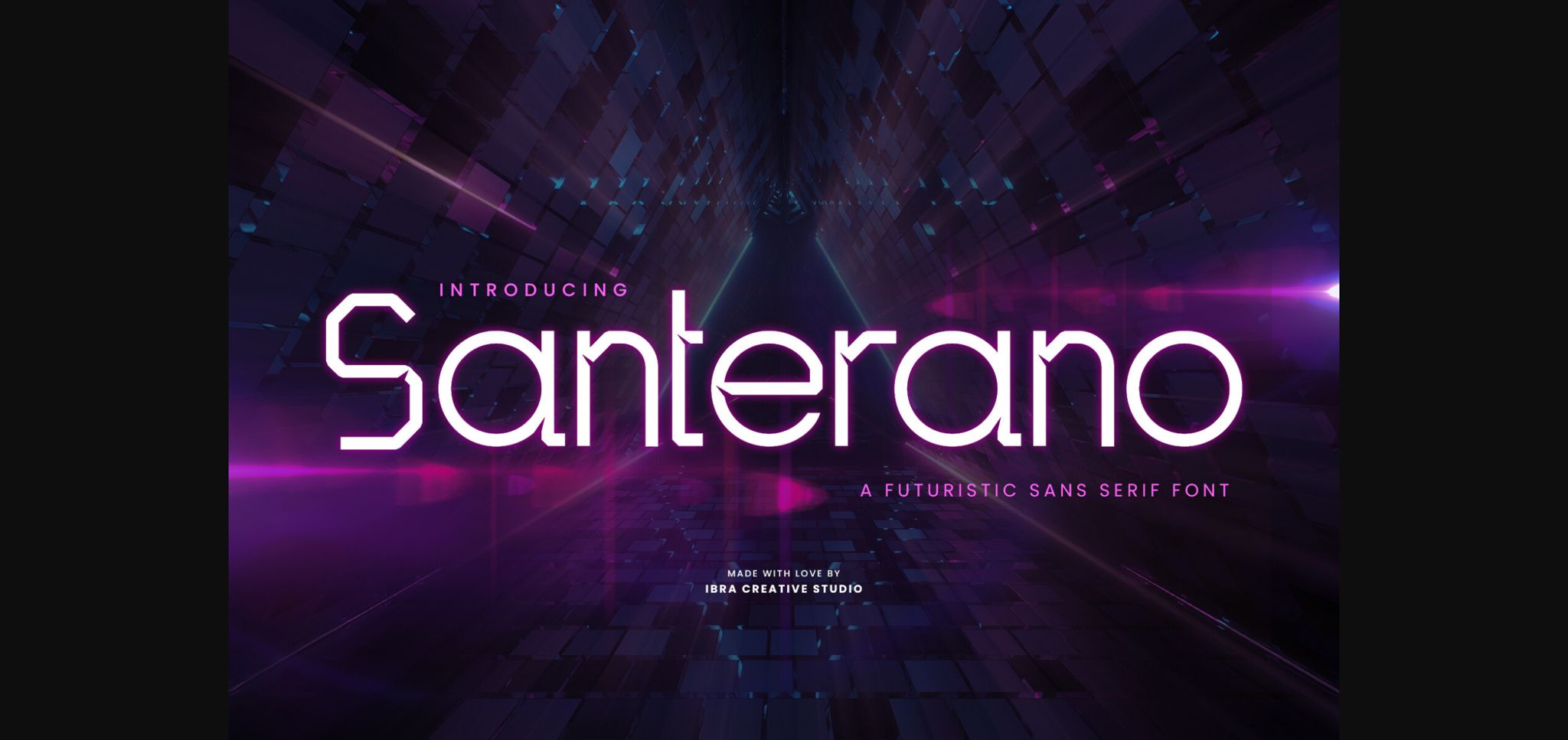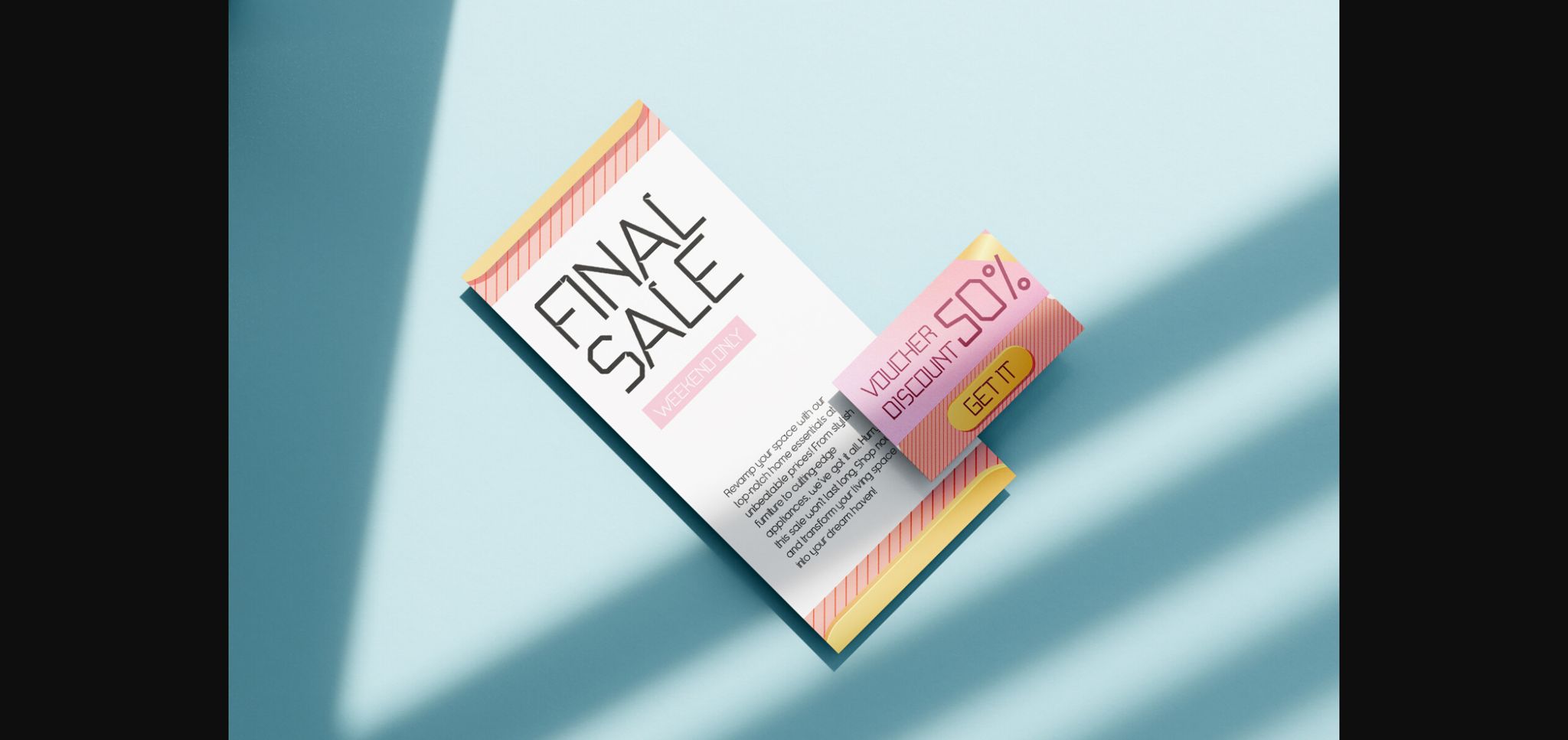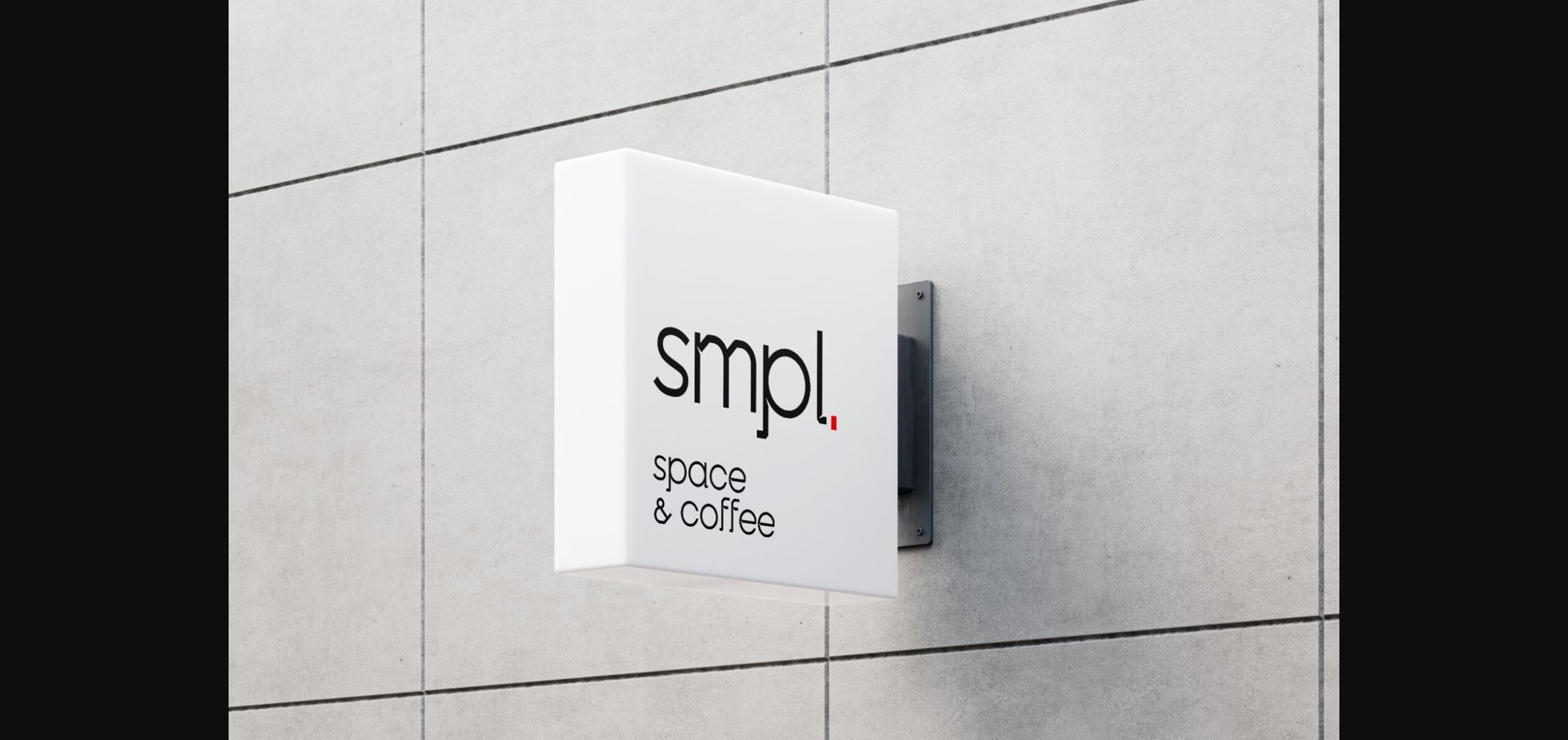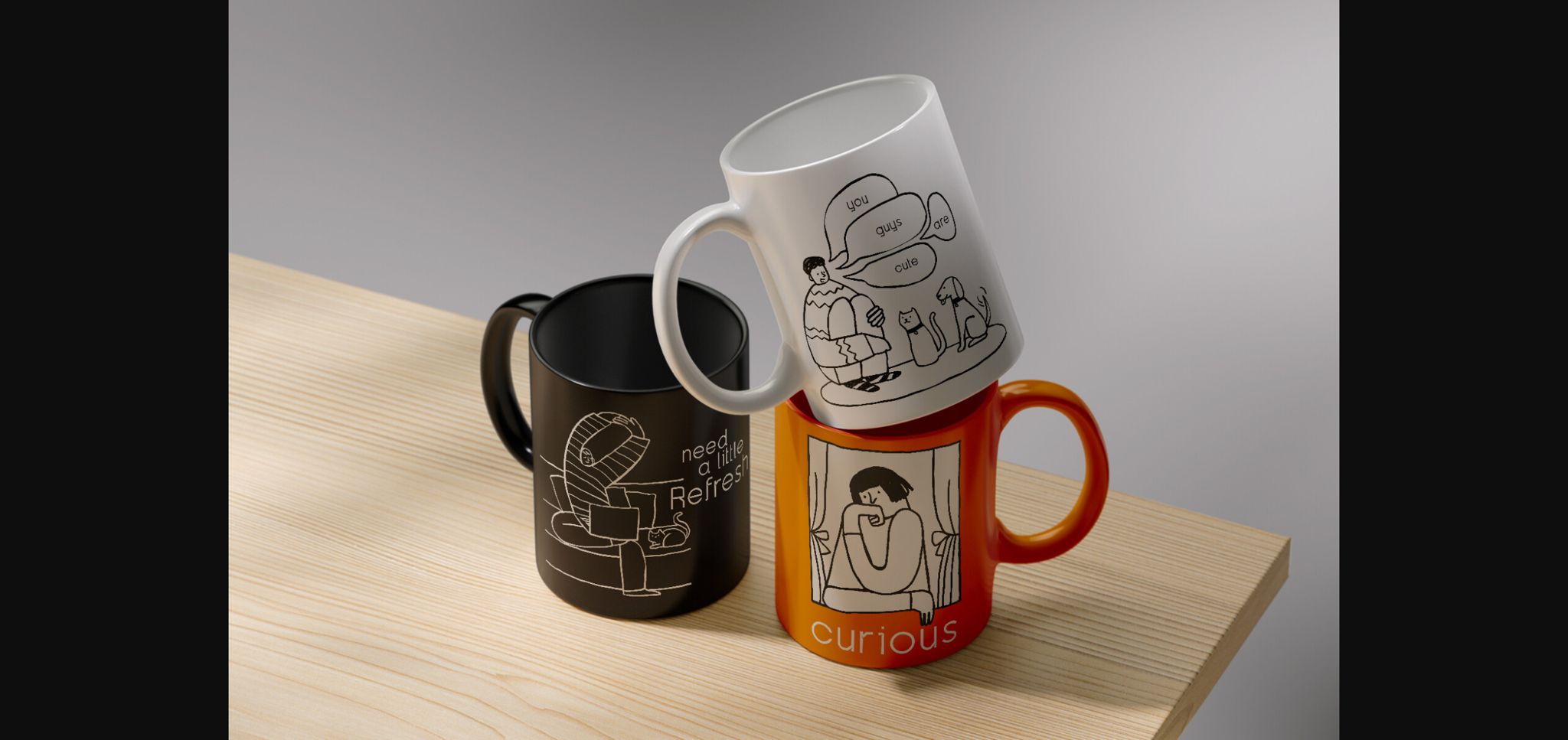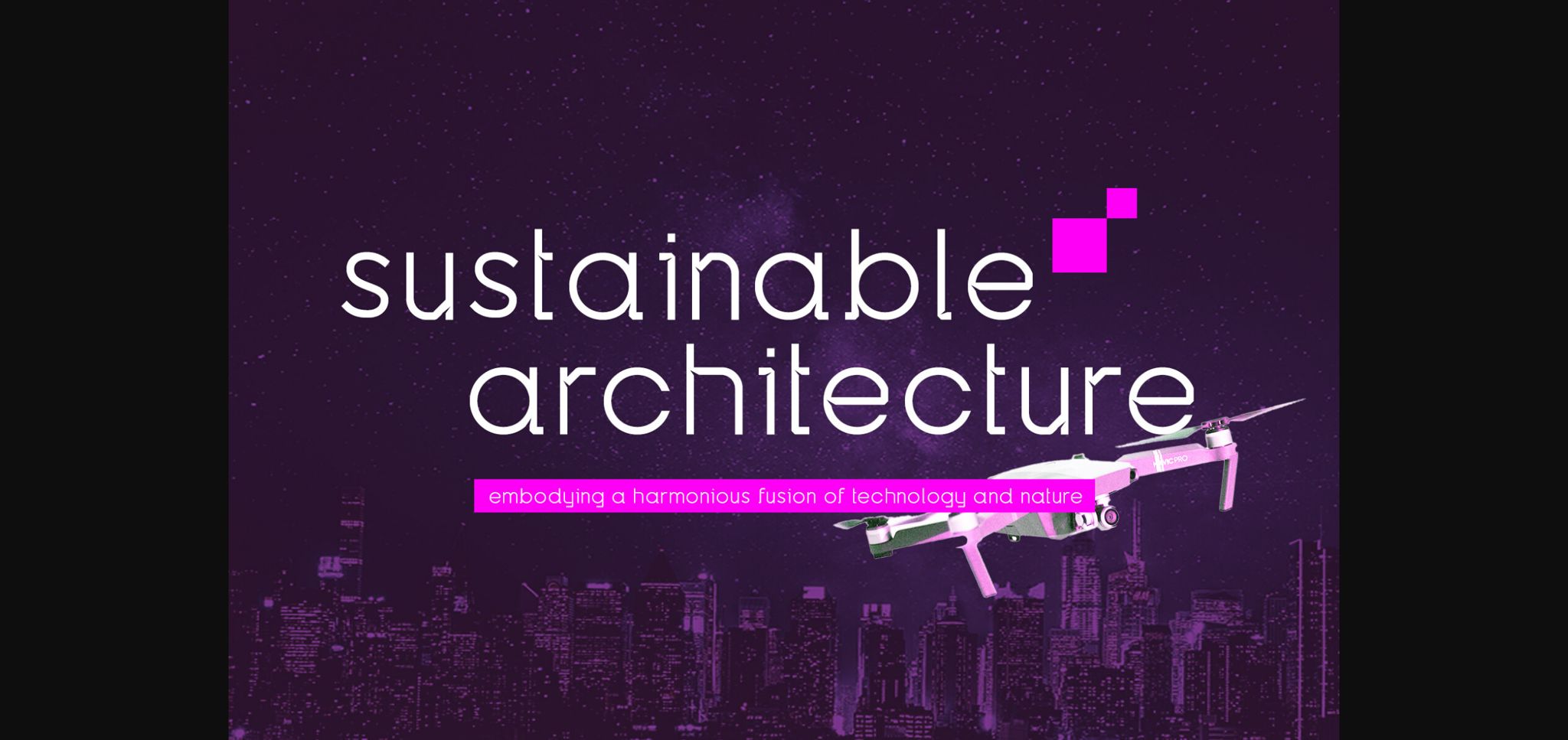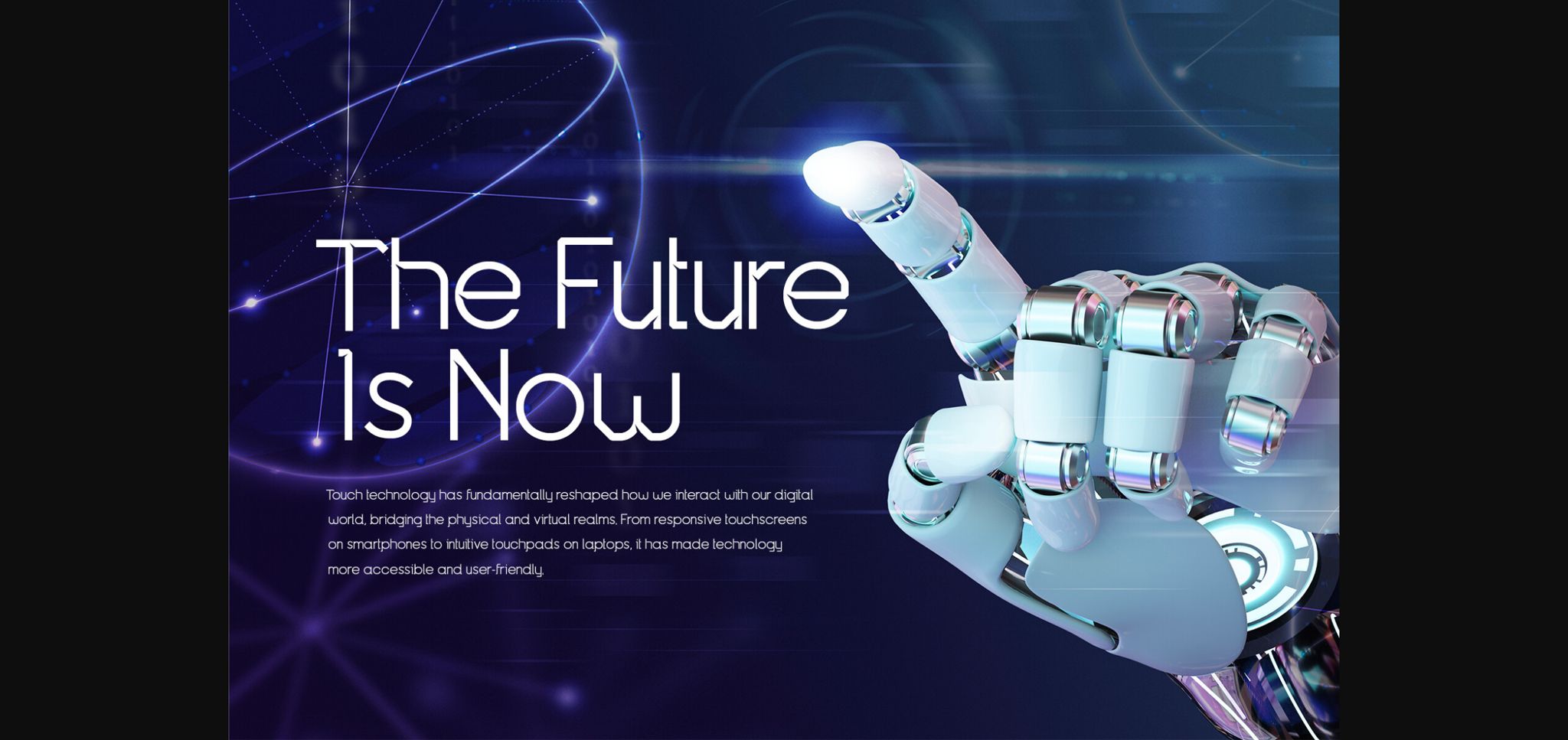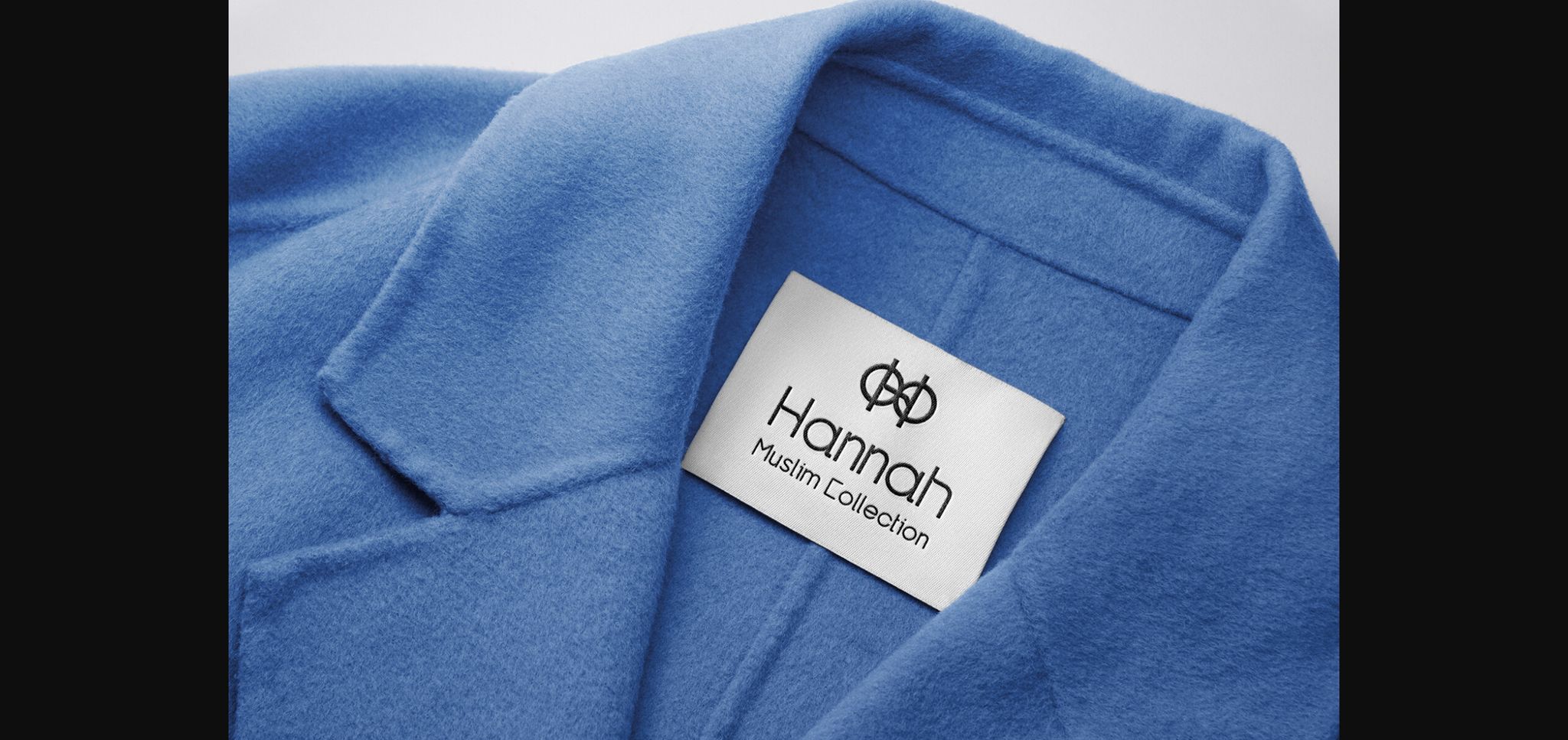
About Santerano Font
Santerano is a cutting-edge sans-serif font that epitomizes the essence of futurism in typography. With its sleek, minimalist lines and meticulously crafted geometric shapes, Santerano exudes a sense of modernity and technological advancement. Its letters are characterized by crisp, clean edges and a harmonious balance between thickness and spacing, projecting an aura of sophistication and innovation.